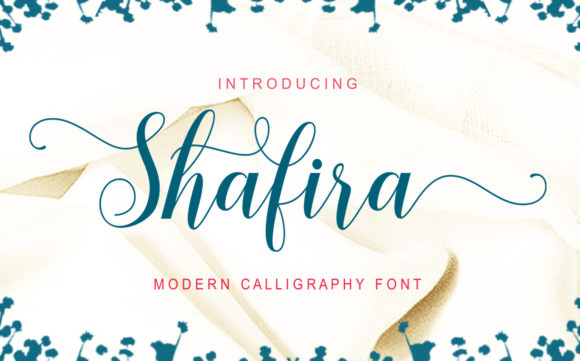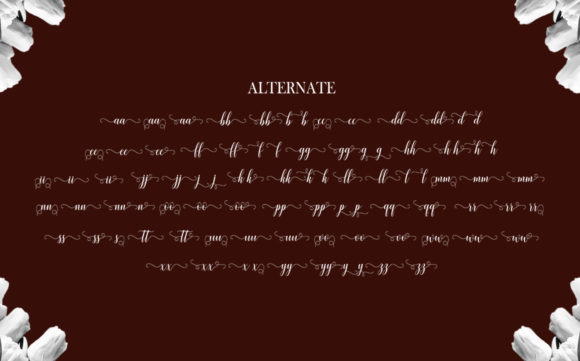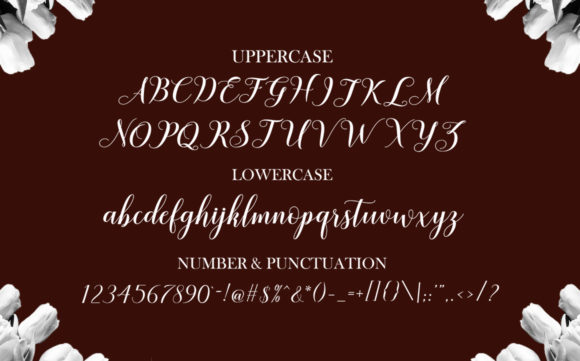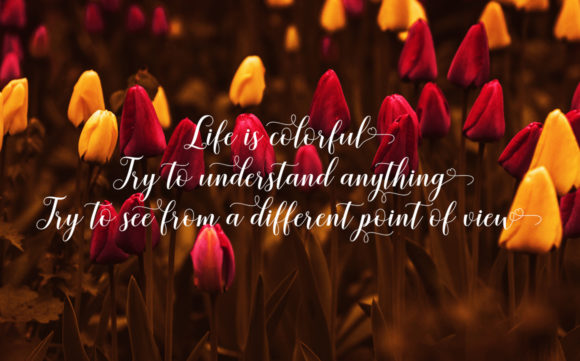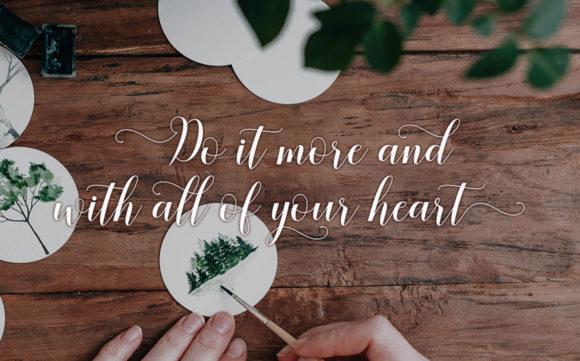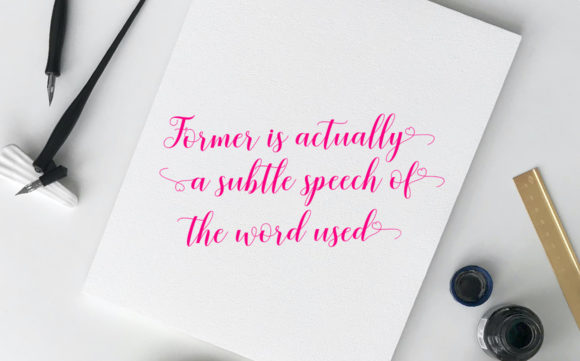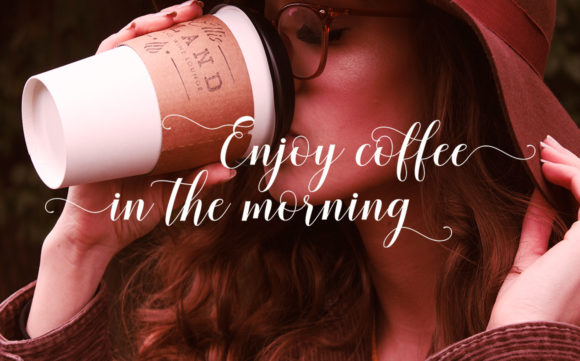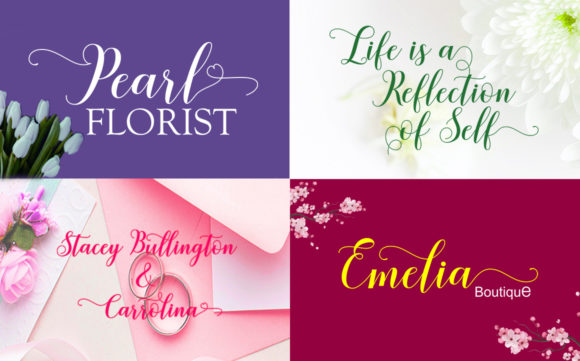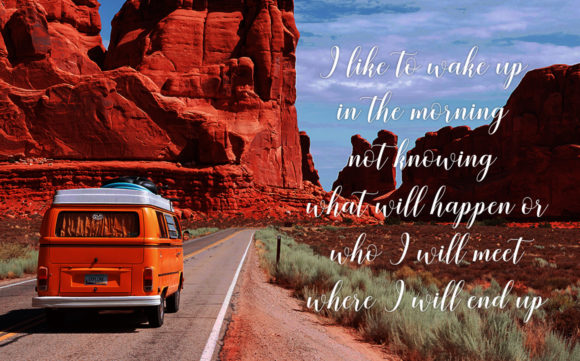
Shafira Font
About Shafira Font
Introducing Shafira: The Elegant and Flowing Handwritten Font
Experience the beauty and sophistication of Shafira, a flowing handwritten font that exudes elegance and charm. With its PUA encoding, you can access all the glyphs and swashes with ease, allowing for seamless customization. Shafira maintains its classy calligraphic influences while embracing a contemporary and fresh feel. Fall in love with this font and elevate your projects to the highest levels of creativity and elegance.
Shafira’s elegant and flowing appeal brings a sense of grace and refinement to your designs. Its handwritten letterforms flow with a seamless beauty, making your text exude a touch of sophistication and charm.
As a PUA encoded font, Shafira offers effortless access to a wide array of glyphs and swashes, providing endless possibilities for customization and creativity. Its classy calligraphic influences ensure that your work resonates with an elegant and timeless look.
Embrace the beauty of Shafira as you embark on your creative journey. Let it be the font that elevates your designs, adding a sense of elegance and contemporary flair in every project.
As you explore the possibilities of Shafira, you’ll find it to be a font that enhances your designs with ease. Its flowing and refined handwritten beauty transforms your work, ensuring that your creations leave a lasting impression.
So, let Shafira be the font that elevates your projects. Embrace its elegant and contemporary touch, and watch as your designs reach new heights of creativity and sophistication. With Shafira as your go-to font, your projects will resonate with beauty and charm, captivating your audience and leaving a lasting impression. Fall in love with Shafira and create designs that are truly stunning and unforgettable!